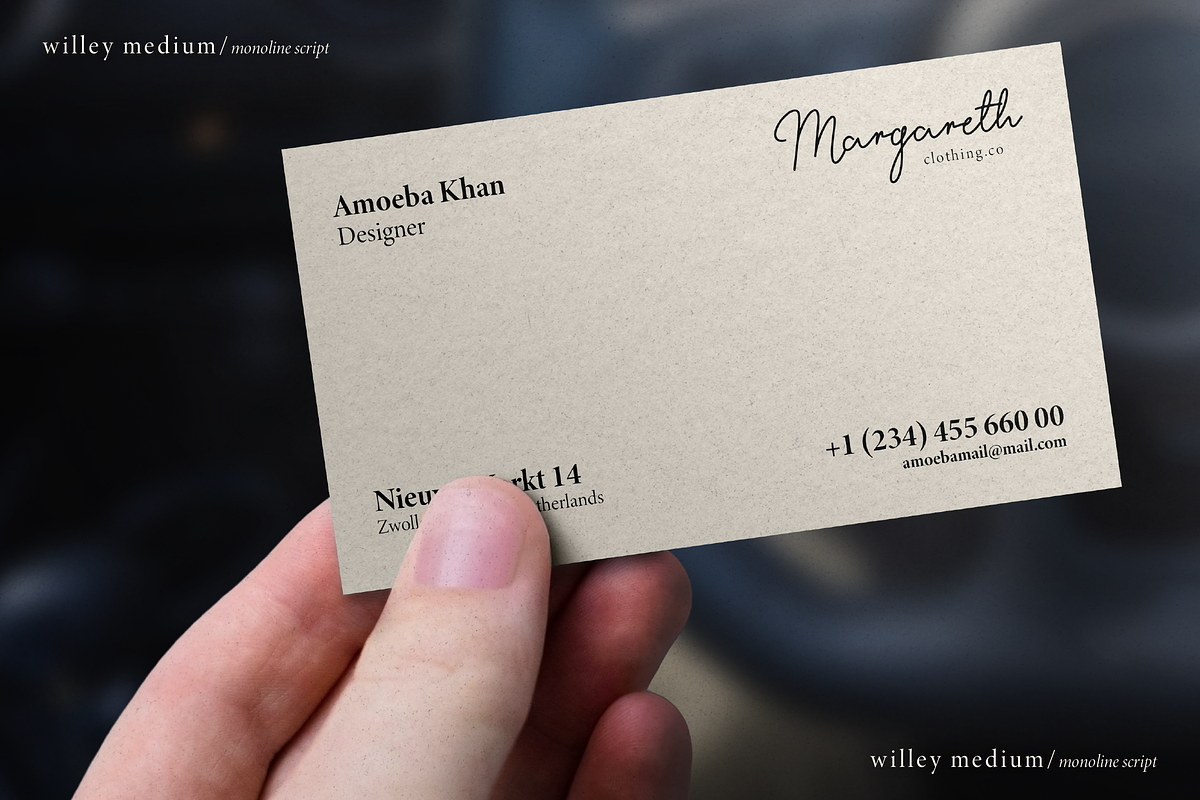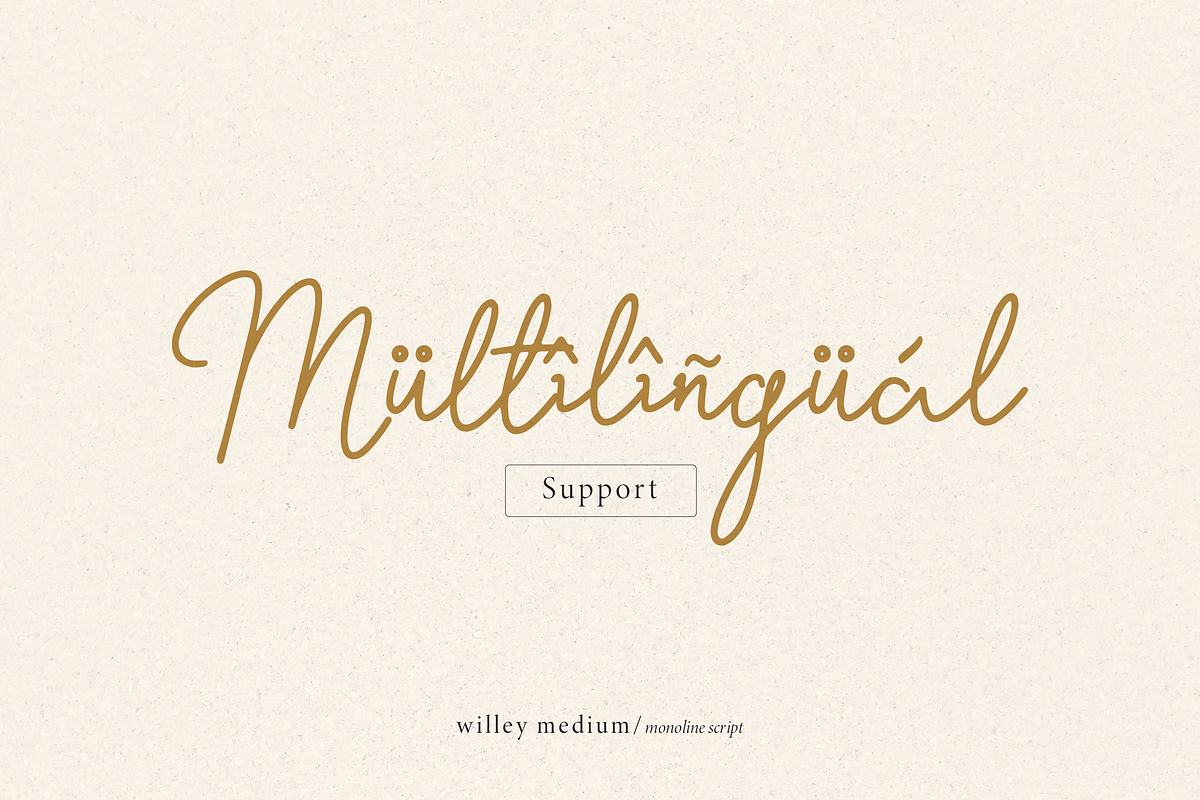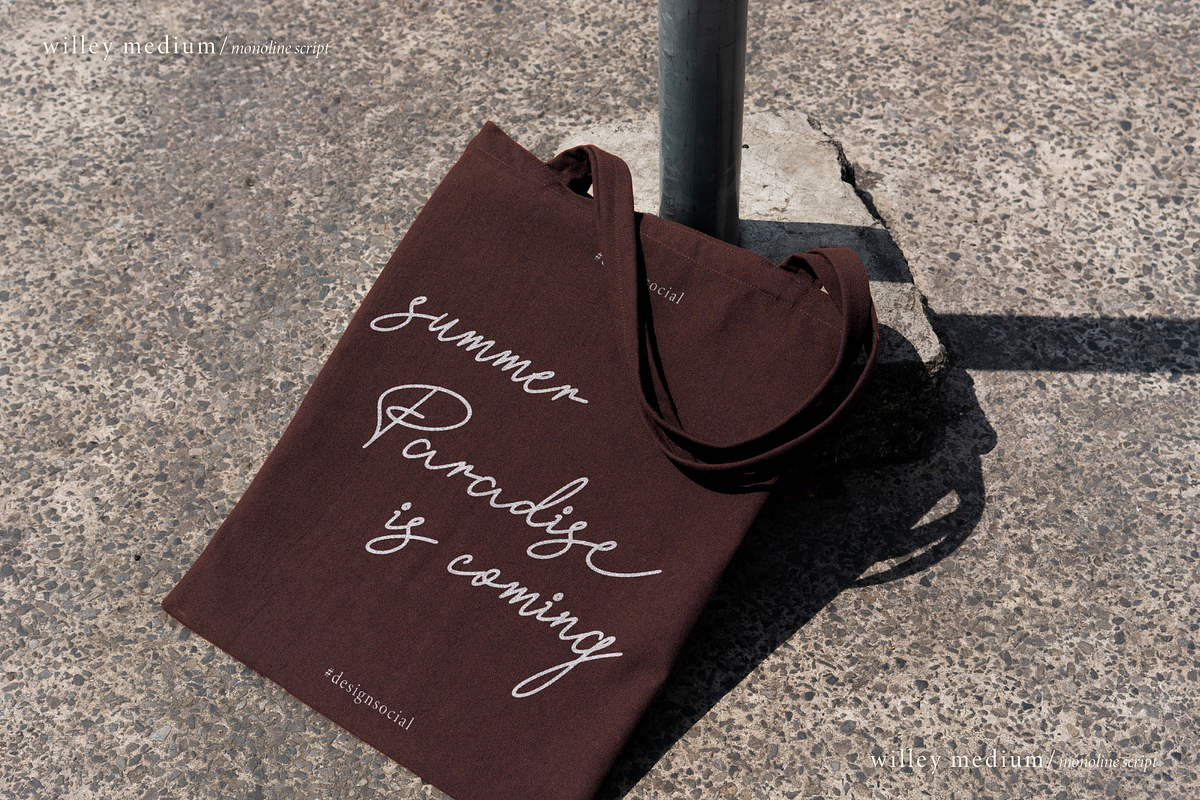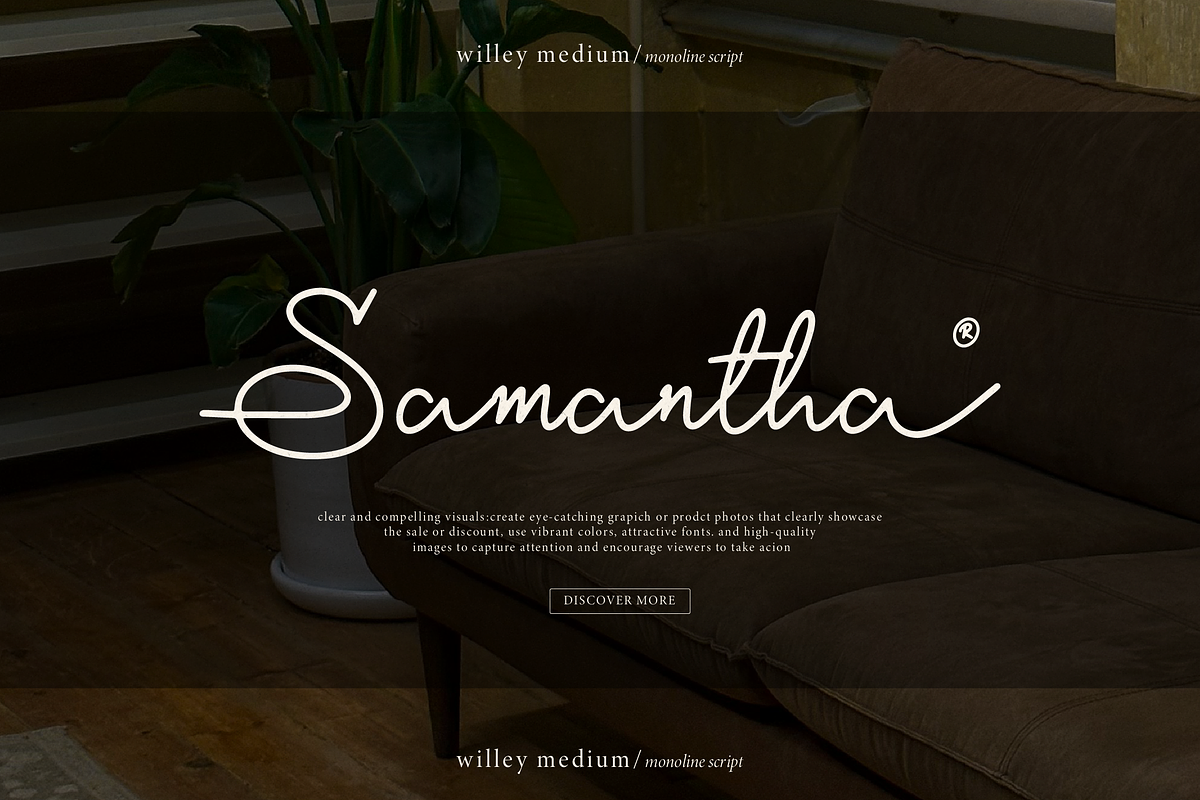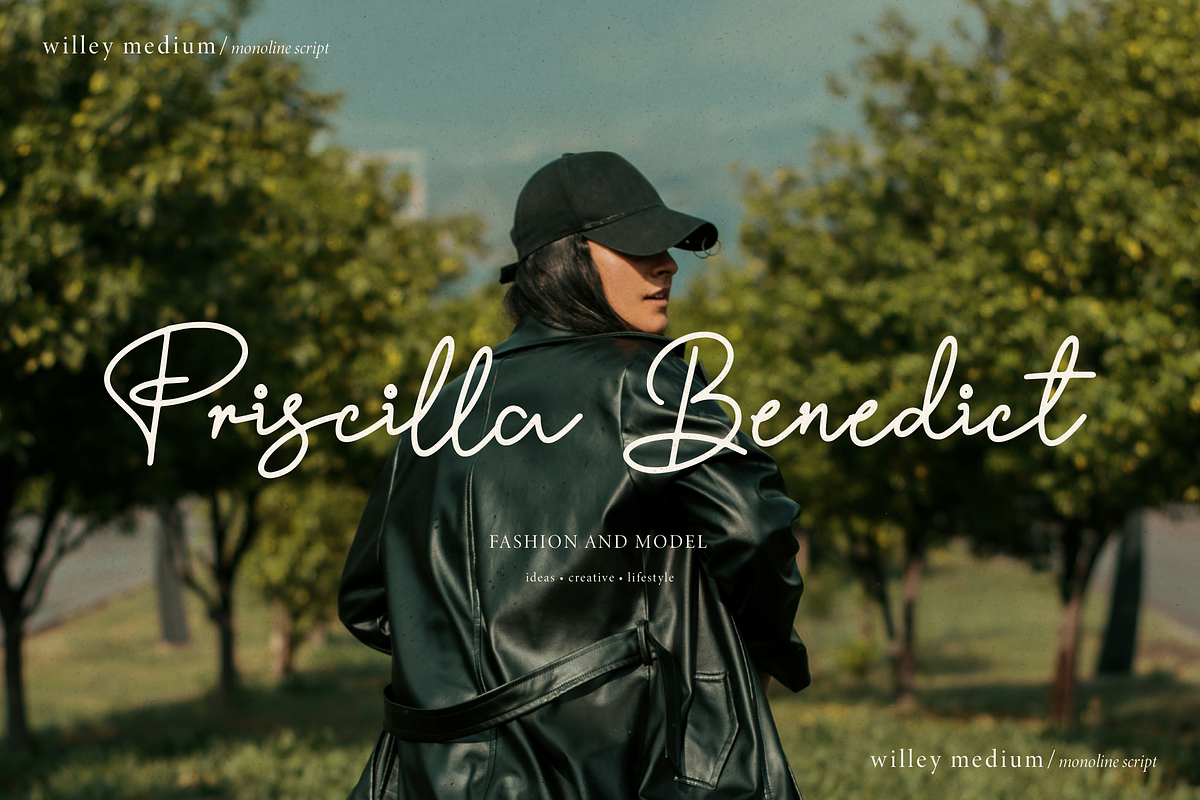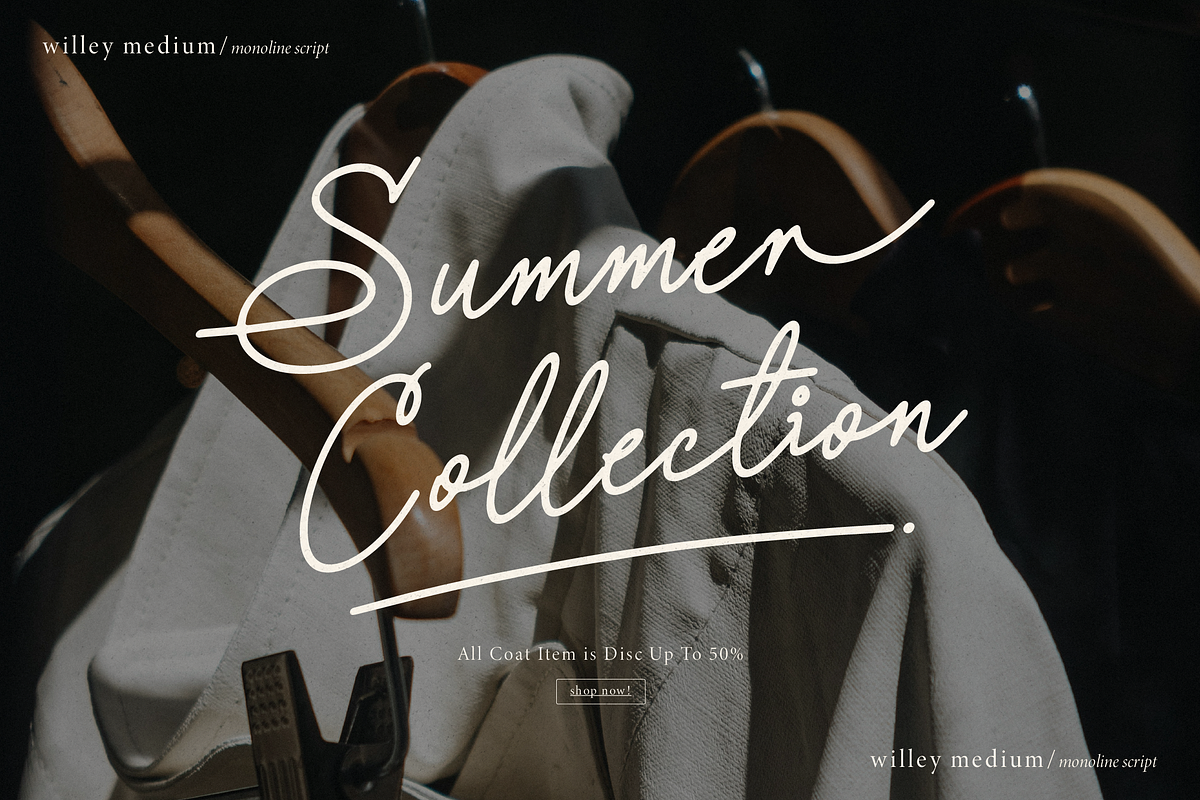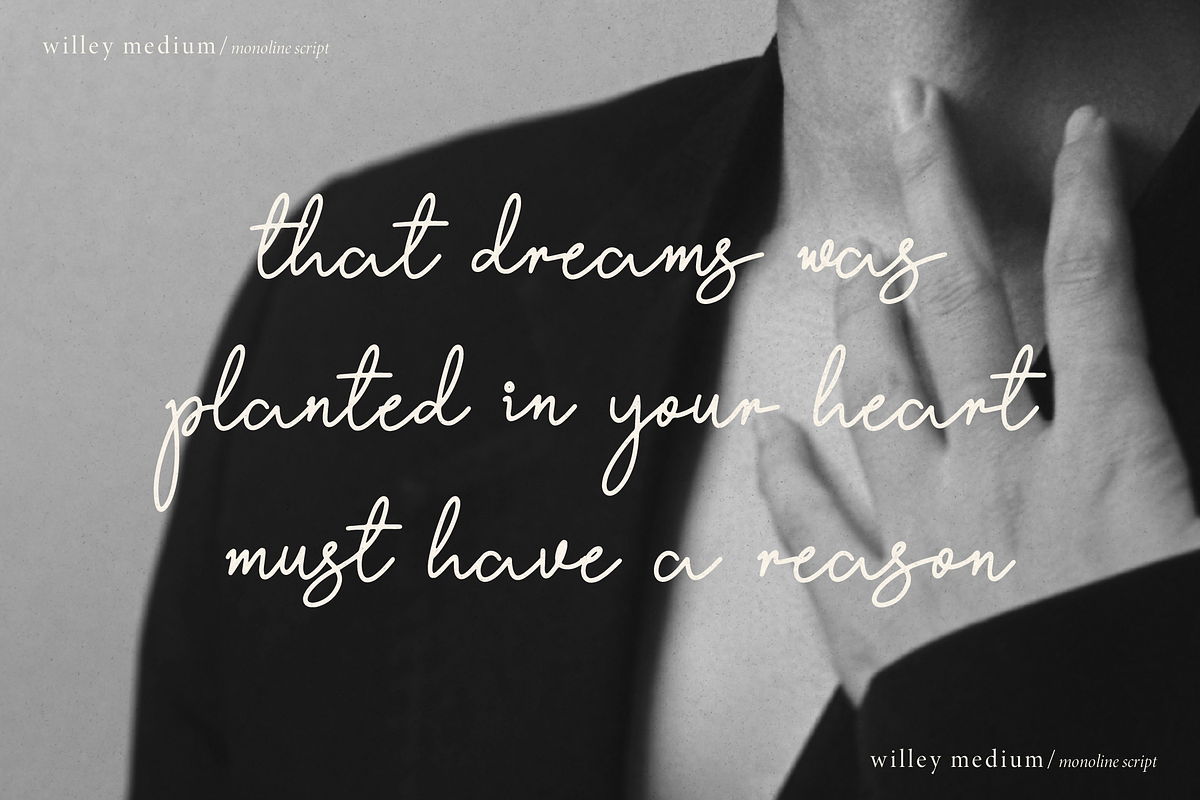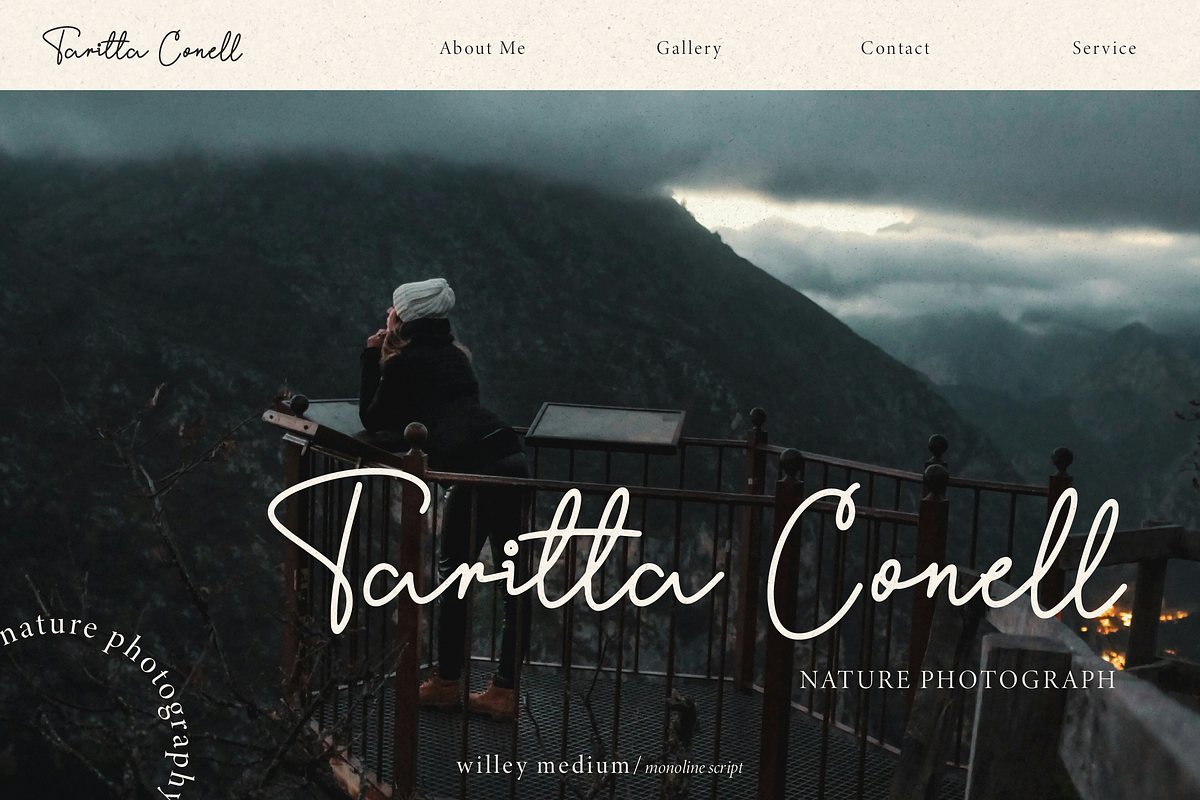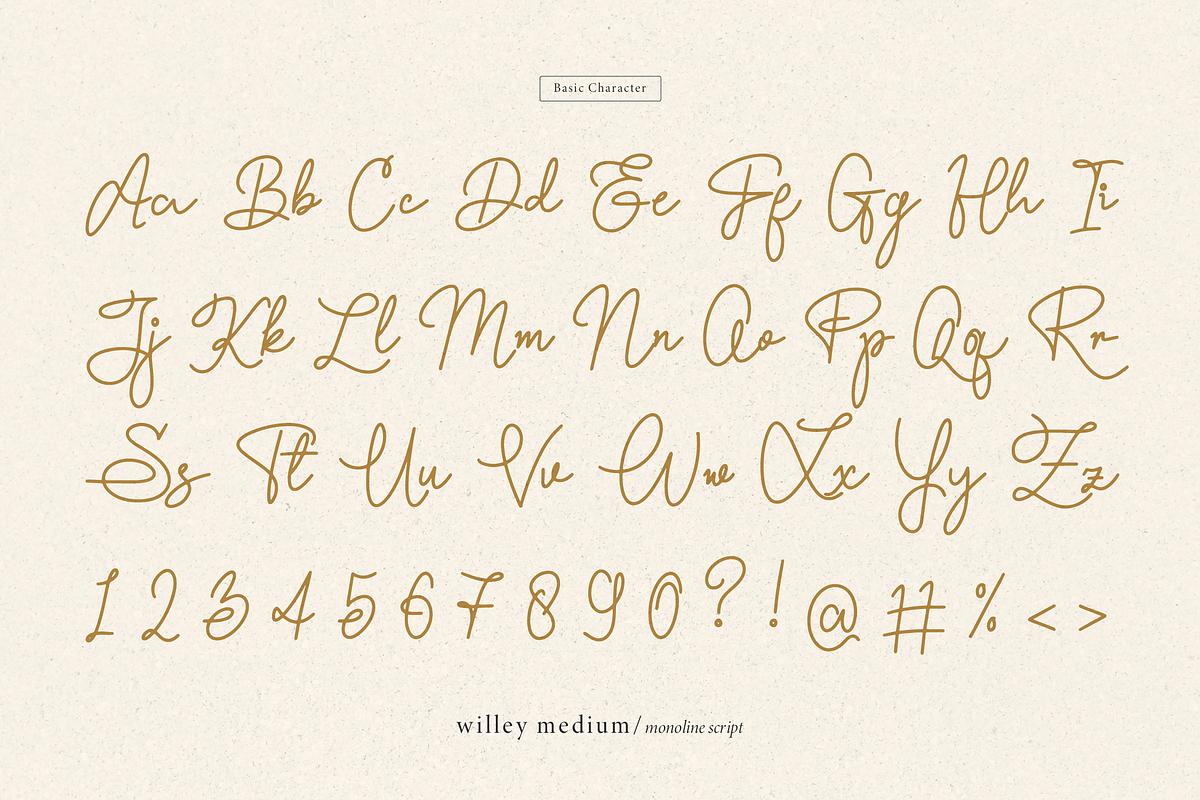
Willey Medium | Monoline Script Font
Willey Medium | Monoline Script Font, from Denustudios, suitable for any projects such as: logos, branding projects, homeware designs, product packaging, mugs, quotes, posters, shopping bags, t-shirts, book covers, name card, invitation cards, greeting cards, label, photography, watermark, special events, and all your other lovely projects that need a Monoline Script Font taste.